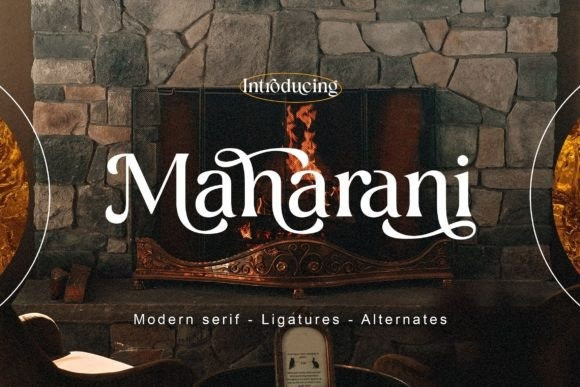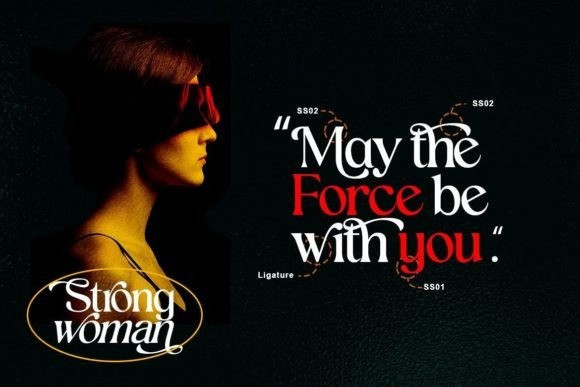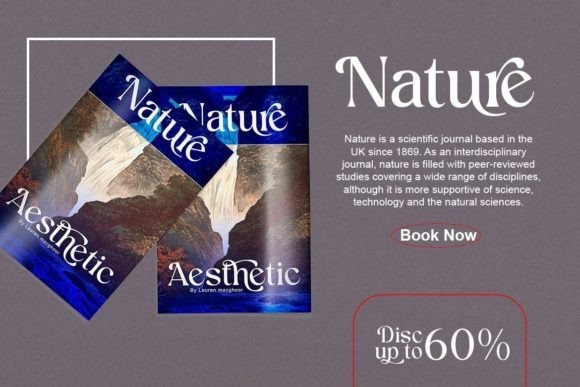
Maharani Font
Maharani is a stylish and exquisite serif font. Its luxurious and elegant character makes it suitable for a wide variety of special creative ideas. Add it confidently to your projects, and you will love the results.